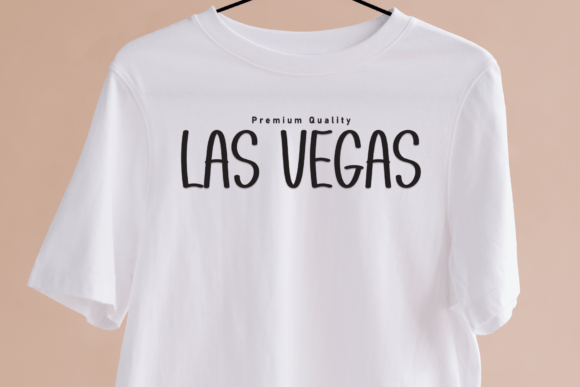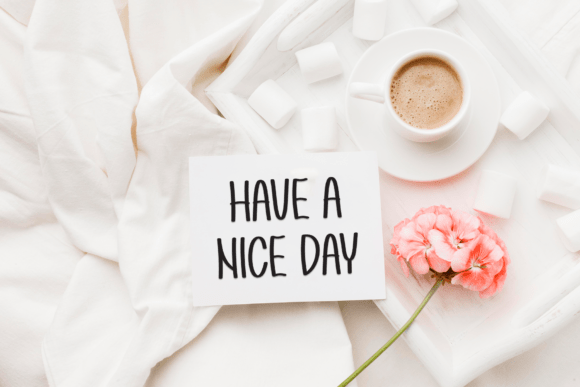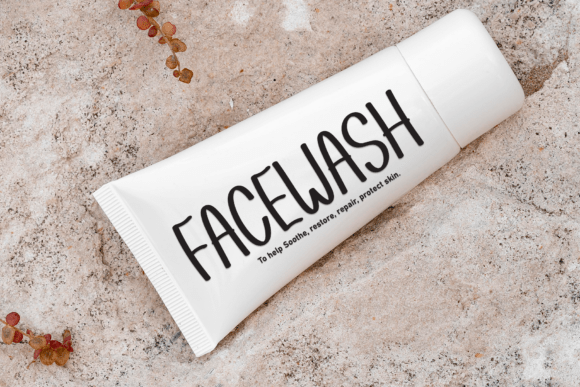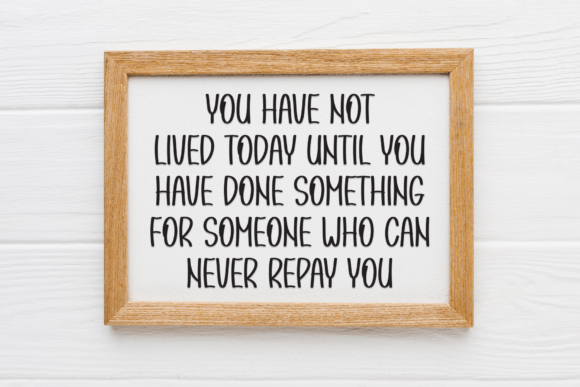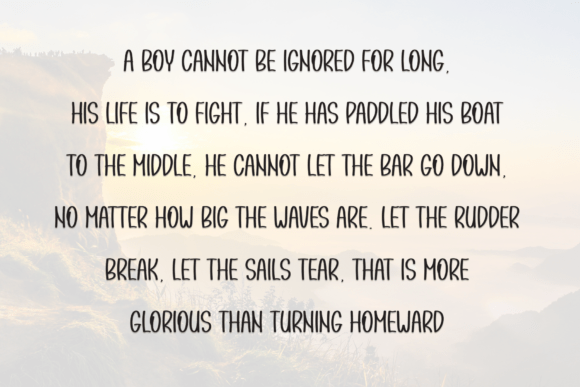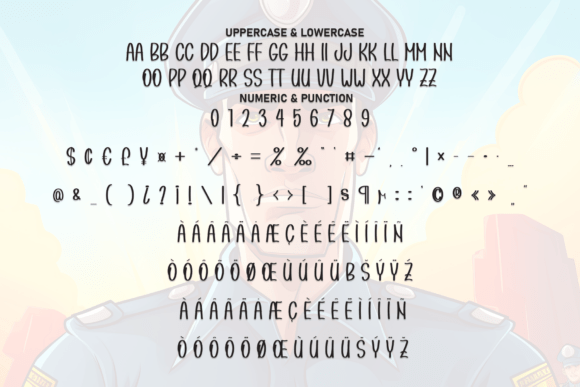
Introducing Comic Police Font: The Perfect Blend of Playfulness and Legibility
Are you a designer or crafter looking for a font that can add a touch of playfulness and approachability to your projects? Look no further than Comic Police Font! This upbeat and charming display font is designed to bring a soft, hand-sculpted personality to your designs, making it perfect for a wide range of applications.
What is Comic Police Font?
Comic Police Font is a simple, handmade font that features thick, vertically elongated letterforms with a consistent monolinear weight and perfectly rounded terminals. Its large, open counters and rhythmic alignment ensure high legibility while maintaining a playful and organized visual flow. This font is the perfect blend of fun and functionality, making it an exceptional asset for various design projects.
Key Features of Comic Police Font
- Soft, hand-sculpted personality: Comic Police Font has a unique, handmade feel that gives it a warm and approachable personality.
- Thick, vertically elongated letterforms: The font’s letterforms are designed to be bold and eye-catching, making it perfect for display purposes.
- Consistent monolinear weight: The font’s consistent weight ensures that it remains legible and easy to read, even at larger sizes.
- Perfectly rounded terminals: The font’s rounded terminals add a touch of softness and friendliness to the design.
- Large, open counters: The font’s large counters ensure that it remains highly legible, even at smaller sizes.
- Rhythmic alignment: The font’s rhythmic alignment ensures that the text flows smoothly and is easy to read.
Use Cases for Comic Police Font
Comic Police Font is a versatile font that can be used in a wide range of design projects, including:
- Children’s educational materials: The font’s playful and approachable personality makes it perfect for use in children’s books, worksheets, and other educational materials.
- Community event signage: The font’s bold and eye-catching design makes it perfect for use in signage for community events, such as festivals, parades, and fairs.
- Playful branding for services: The font’s fun and approachable personality makes it perfect for use in branding for services, such as children’s parties, pet sitting, or home cleaning services.
- Cheerful editorial headers: The font’s bold and playful design makes it perfect for use in editorial headers for blogs, magazines, and other publications.
Why Choose Comic Police Font?
There are many reasons why designers and crafters should choose Comic Police Font for their projects. Here are just a few:
- Unique and playful personality: Comic Police Font has a unique and playful personality that can add a touch of fun and whimsy to any design project.
- High legibility: The font’s large counters and rhythmic alignment ensure that it remains highly legible, even at smaller sizes.
- Versatility: Comic Police Font can be used in a wide range of design projects, from children’s educational materials to cheerful editorial headers.
In conclusion, Comic Police Font is a unique and versatile font that can add a touch of playfulness and approachability to any design project. Its soft, hand-sculpted personality, thick letterforms, and high legibility make it perfect for use in a wide range of applications, from children’s educational materials to cheerful editorial headers. Whether you’re a designer or crafter, Comic Police Font is a great choice for any project that requires a fun and playful touch.